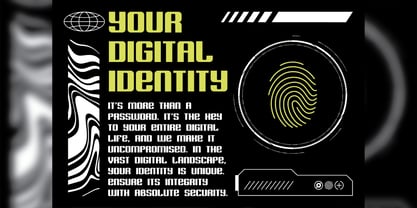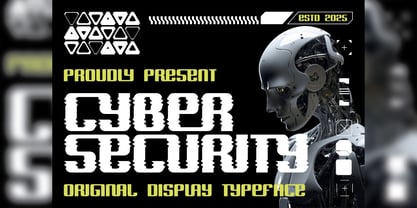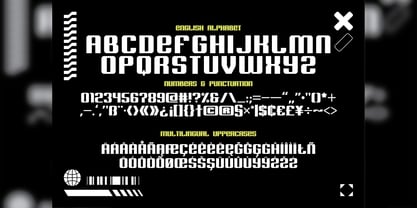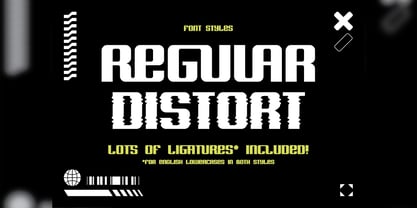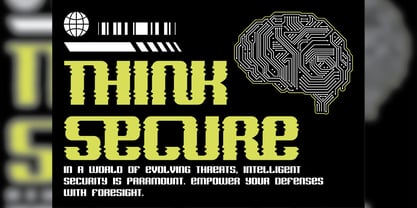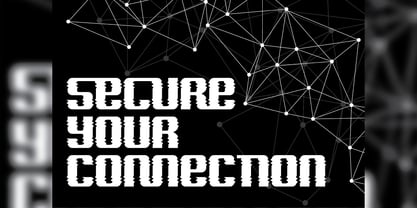
Cyber Security
by Vozzy
Introducing the striking font family "Cyber Security," designed specifically for impactful headlines and accent inscriptions. This unique typeface captures attention with its modern aesthetic, making it perfect for branding, web design, and editorial projects. It features an extensive range of additional characters, punctuation marks, and multilingual options, along with a wealth of standard ligatures to enhance your typography. Ensure your software supports these OpenType features to fully utilize the font's capabilities. Elevate your designs with the bold and versatile "Cyber Security" font!